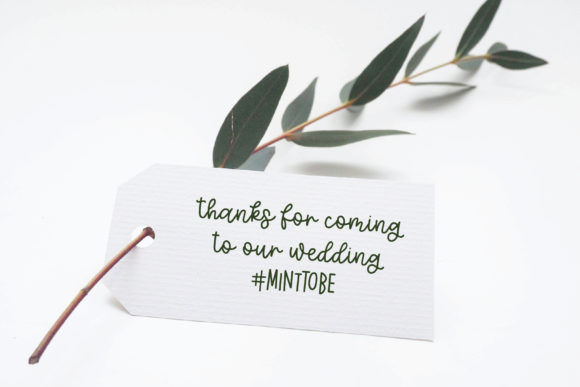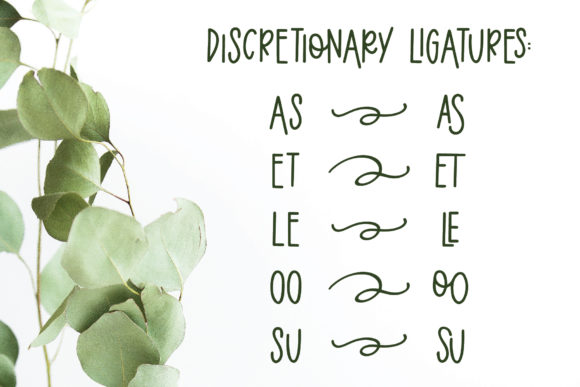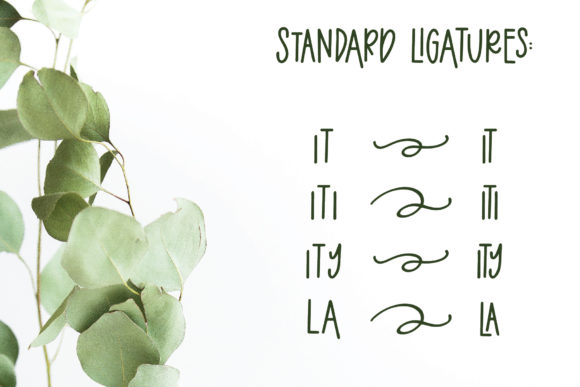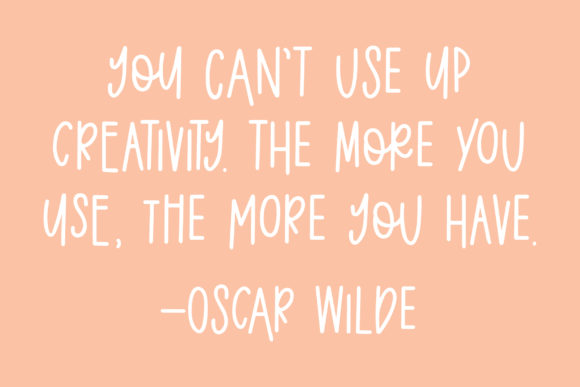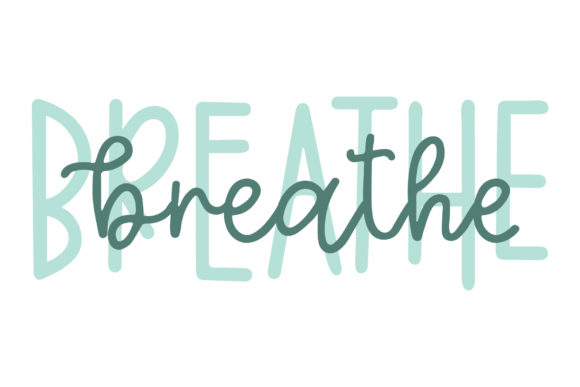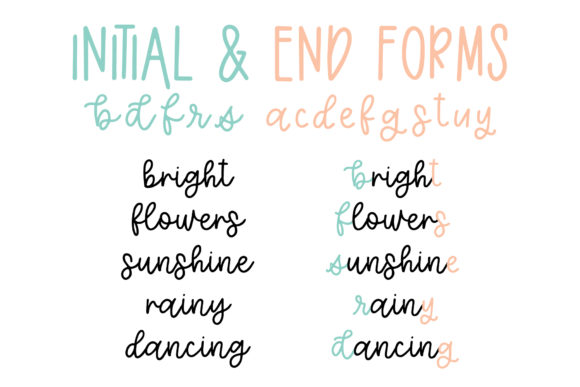
Eucalyptus Spearmint Font – Free Download
Introduction to Eucalyptus Spearmint Font
Eucalyptus Spearmint is romantic and sweet, but also casual.
This beautiful sans serif font has a wide range of applications ranging from hobby crafting to professional projects, and is guaranteed to add a playful touch to your next design This font is PUA encoded which means you can access all of the pretty glyphs and swashes with ease.
Key Features of Eucalyptus Spearmint Font
Why Choose Eucalyptus Spearmint Font?
Eucalyptus Spearmint Font offers exceptional quality and versatility, making it a valuable addition to your design toolkit. Whether you’re creating for personal projects or commercial use, Eucalyptus Spearmint Font delivers professional results.